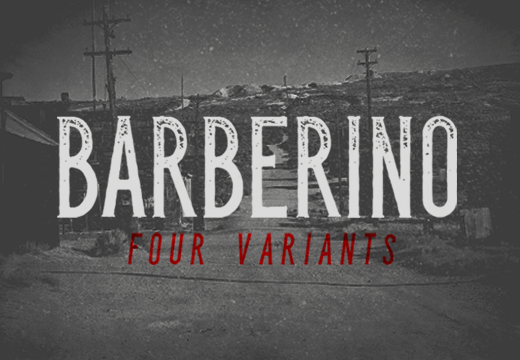
Barberino Font Family
Barberino font is one of the many fonts released by DesignTNT and it features four styles: Clean, Rough, Rough Grunge and Rough Italic. The tall proportions and the delicate serifs make the font easy to read, while the grunges and the rough edges help convey the written messages with an eye-pleasing experience.
We believe its purpose is to create exclusively titles and sub-titles. Thus, this font only contains caps and small caps, as well as special characters.
Barberino font preview including alphabets, numbers, symbols and mockups